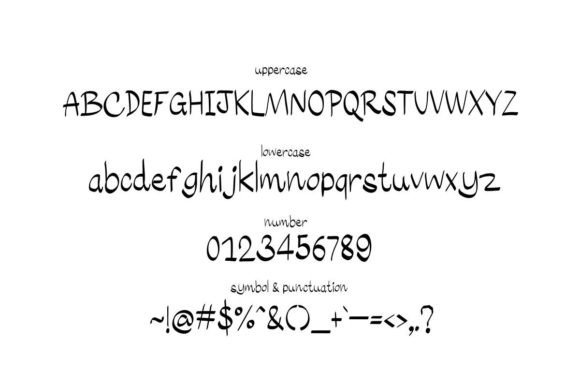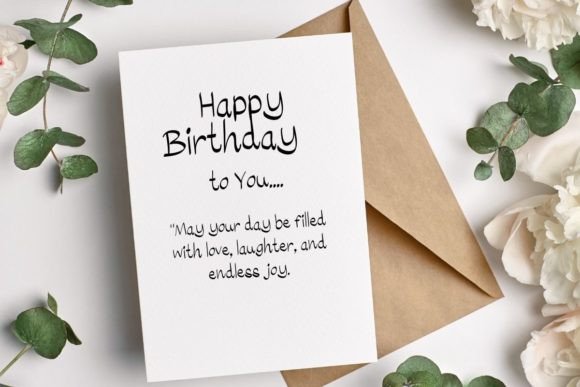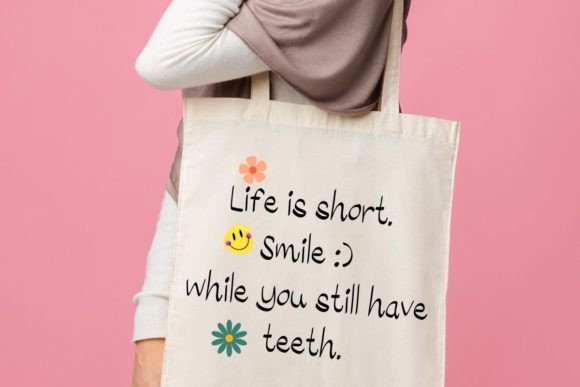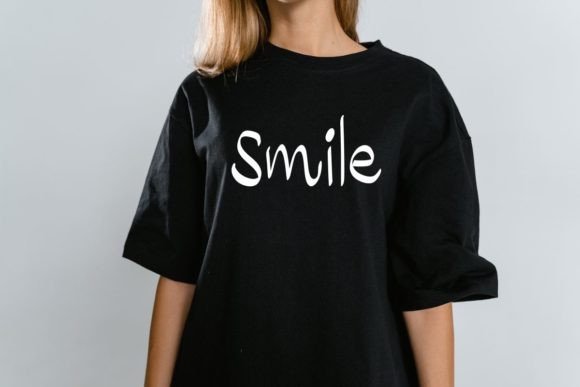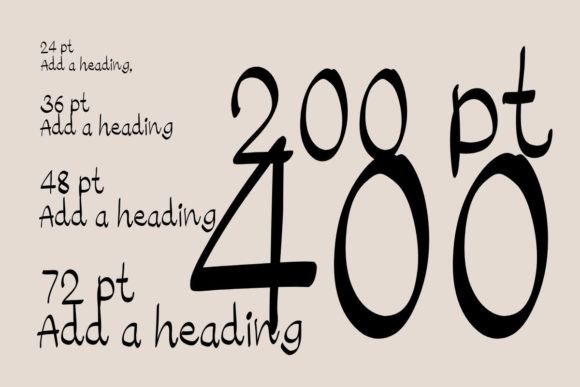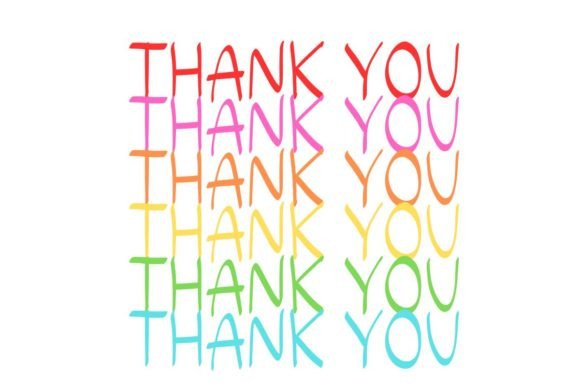
The Amir Font: A Creative Powerhouse for Your Design Projects
I’ll never forget the time I was working on a branding project for a trendy new coffee shop. My client wanted a font that was both elegant and playful, but I was struggling to find the perfect fit. That’s when I stumbled upon the Amir font, and it instantly became the star of the show. With its unique handwriting style and versatility, Amir has become a go-to font in my design toolkit. In this article, I’ll share my love for Amir, its features, and how to make the most of it in your design projects.
An Honest Review of Amir Font
What I Love About Amir ✨
- Unique handwriting style that’s both elegant and playful ✅
- Perfect for a wide range of creative projects, from letterheads to t-shirts 📝
- Works well for branding materials, logos, posters, and photography 📸
- Supports OpenType features, glyphs, and stylistic alternates for added customization 🎨
- May not be suitable for very formal or traditional designs ⚠️
- Some users may find the font a bit too ornate or decorative for certain projects 🤔
The Designer Inspiration Behind Amir
Amir was designed with the creative professional in mind. Its unique handwriting style is inspired by the work of contemporary artists and designers who value elegance and playfulness. While the true story behind Amir’s creation may be unknown, its impact on the design community is undeniable.
| Font Name | Amir Font |
| Author | ByXiStudio |
| What type of projects is Amir best suited for? | Amir is perfect for a wide range of creative projects, including branding materials, logos, posters, photography, and more. |
| Does Amir support OpenType features? | Yes, Amir supports OpenType features, glyphs, and stylistic alternates for added customization. |